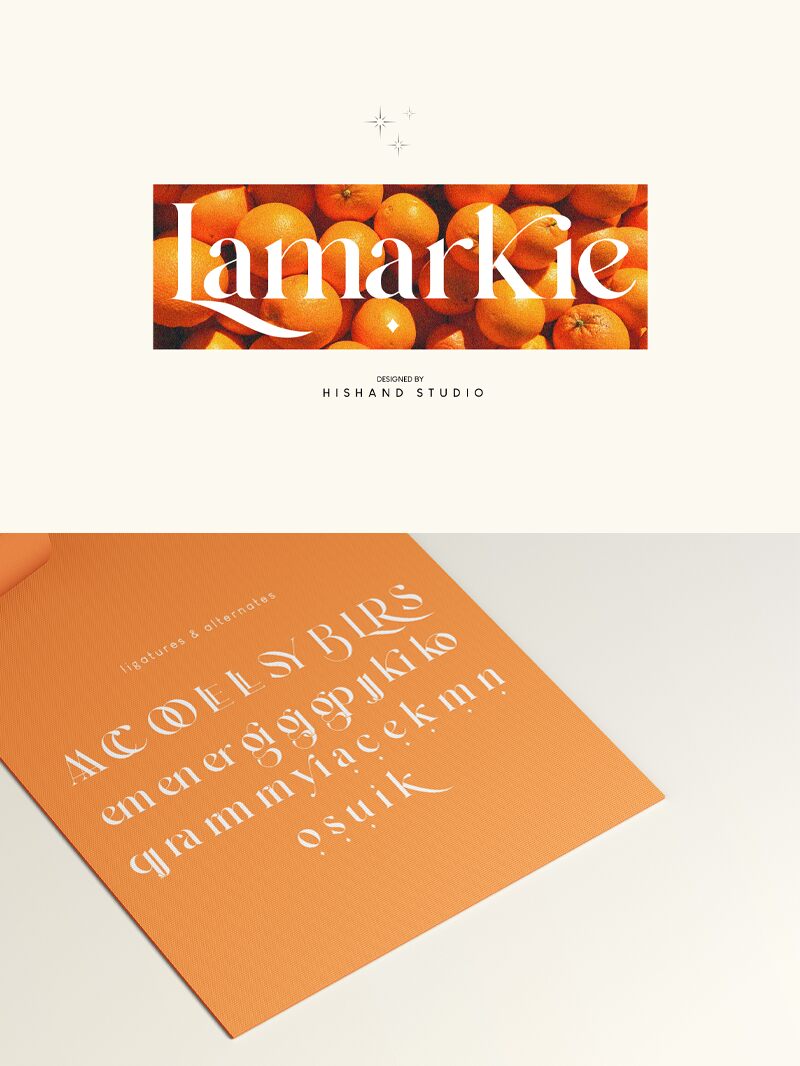
Lamarkie, a sophisticated serif font by Hishand Studio, exudes timeless elegance and versatility. Its clean lines and delicate serifs make it perfect for a wide range of projects.
The semi-bold font typeface adds a touch of modernity to traditional designs, making it ideal for corporate branding, editorial layouts, and professional websites. With its legible design and balanced proportions, Lamarkie lends itself beautifully to body text in books, magazines, and brochures. Whether you're crafting an elegant logo or designing an upscale invitation, Lamarkie is the epitome of refined typography that will elevate any project.
Lamarkie
Hishand Studio